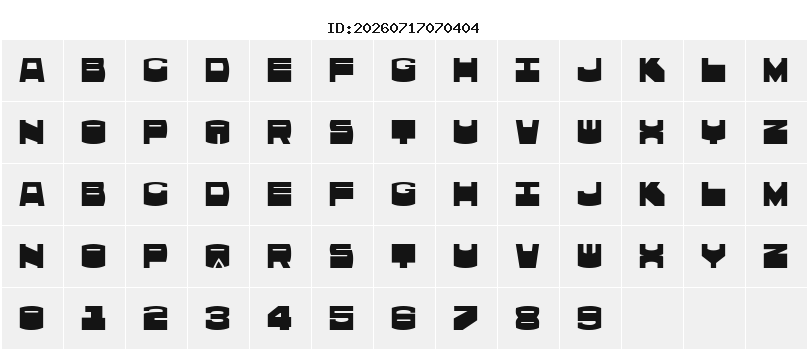
Brok Preview
• Font Name: Brok
• Full Font Name: Brok
• PostScript Name: Brok
• Character Count: 217
• Copyright: 1995, Elizabeth C. Holzman, designer. Produced by the Font Bureau, Inc.
• Manufacturer: Elizabeth C. Holzman, designer. Produced by the Font Bureau, Inc
About Brok.ttf
Brok.ttf is a modern, elegant sans-serif font designed for ultimate readability and visual harmony. Perfect for branding, headlines, web design, and print materials.